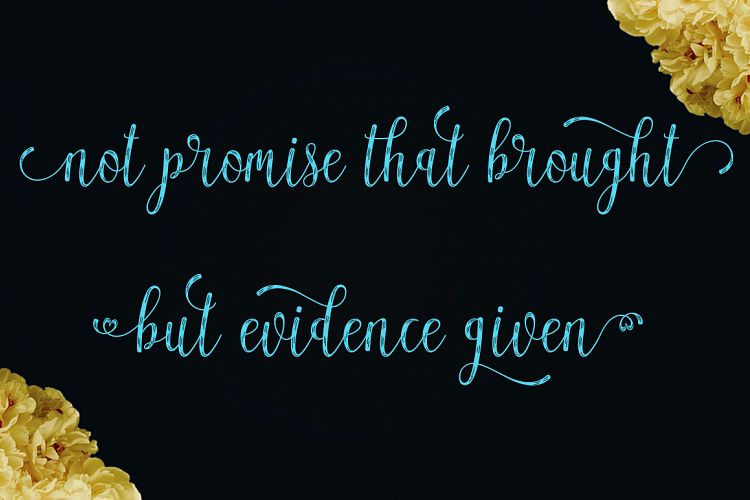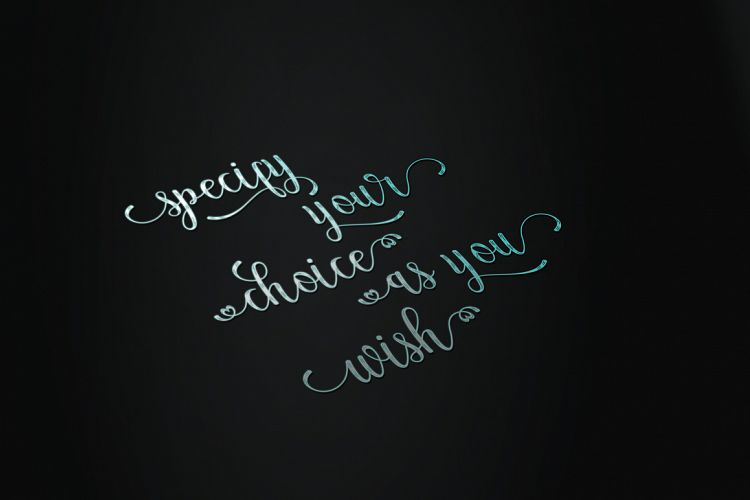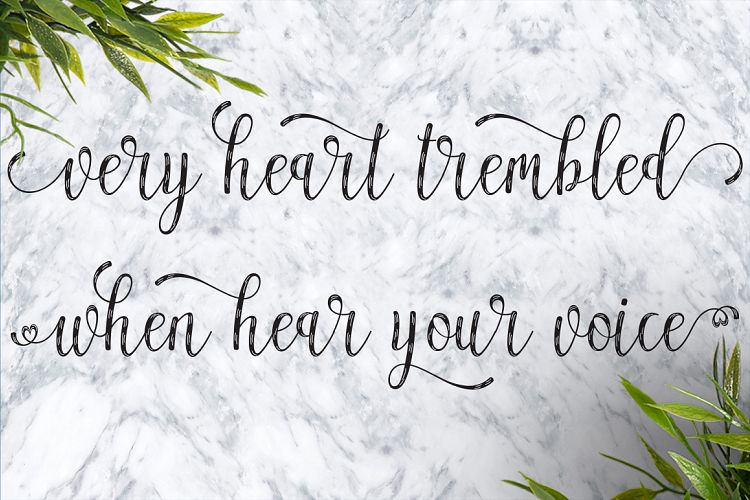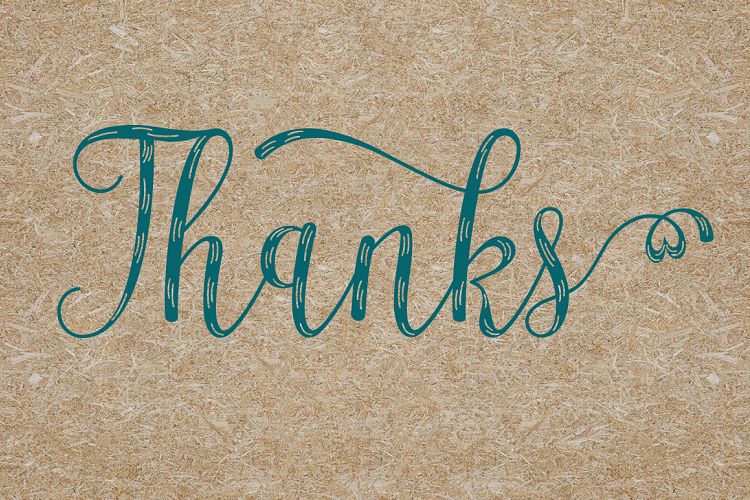
Introducing Daydream Font: A Modern Handcrafted Script Font
Are you tired of using the same old fonts for your design projects? Do you want to add a touch of elegance and sophistication to your creations? Look no further than Daydream Font, a modern handcrafted script font that’s perfect for designers and crafters alike.
What is Daydream Font?
Daydream Font is a beautiful, handcrafted script font that’s designed to add a touch of whimsy and romance to your designs. With its flowing lines and delicate curves, this font is perfect for creating stunning headlines, titles, and quotes. Whether you’re working on a branding project, a wedding invitation, or a social media graphic, Daydream Font is sure to make your design stand out.
Features of Daydream Font
So, what makes Daydream Font so special? Here are just a few of its key features:
- Handcrafted with love: Each letter has been carefully crafted by hand to ensure a unique and personal touch.
- Modern and elegant: Daydream Font has a sleek, modern look that’s perfect for designs that require a touch of sophistication.
- Script font: With its flowing lines and connected letters, Daydream Font has a beautiful script feel that’s perfect for creating eye-catching headlines and titles.
- Multilingual support: Daydream Font supports multiple languages, making it perfect for designers who work with international clients.
Uses for Daydream Font
So, what can you use Daydream Font for? The possibilities are endless! Here are a few ideas to get you started:
- Branding and logos: Use Daydream Font to create a unique and memorable logo for your business or brand.
- Wedding invitations and stationery: Add a touch of romance and elegance to your wedding invitations and stationery with Daydream Font.
- Social media graphics: Use Daydream Font to create eye-catching social media graphics that will help your brand stand out.
- Packaging and labels: Add a personal touch to your packaging and labels with Daydream Font.
Tips for Using Daydream Font
Here are a few tips for getting the most out of Daydream Font:
- Use it sparingly: Daydream Font is a statement font, so use it sparingly to add emphasis and impact to your designs.
- Pair it with a sans serif font: Pair Daydream Font with a sans serif font to create a beautiful contrast and add visual interest to your designs.
- Experiment with colors: Daydream Font looks beautiful in a range of colors, so don’t be afraid to experiment and find the perfect hue for your design.
In conclusion, Daydream Font is a beautiful, modern handcrafted script font that’s perfect for designers and crafters alike. With its elegant lines, delicate curves, and whimsical feel, this font is sure to add a touch of magic to your designs. So why not give it a try and see what amazing creations you can come up with?